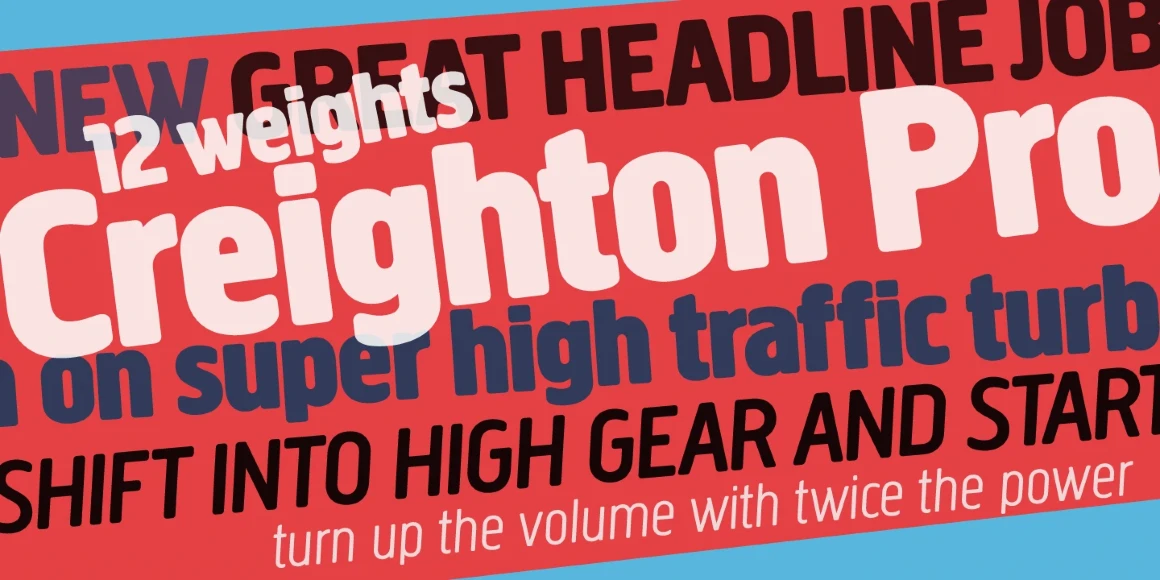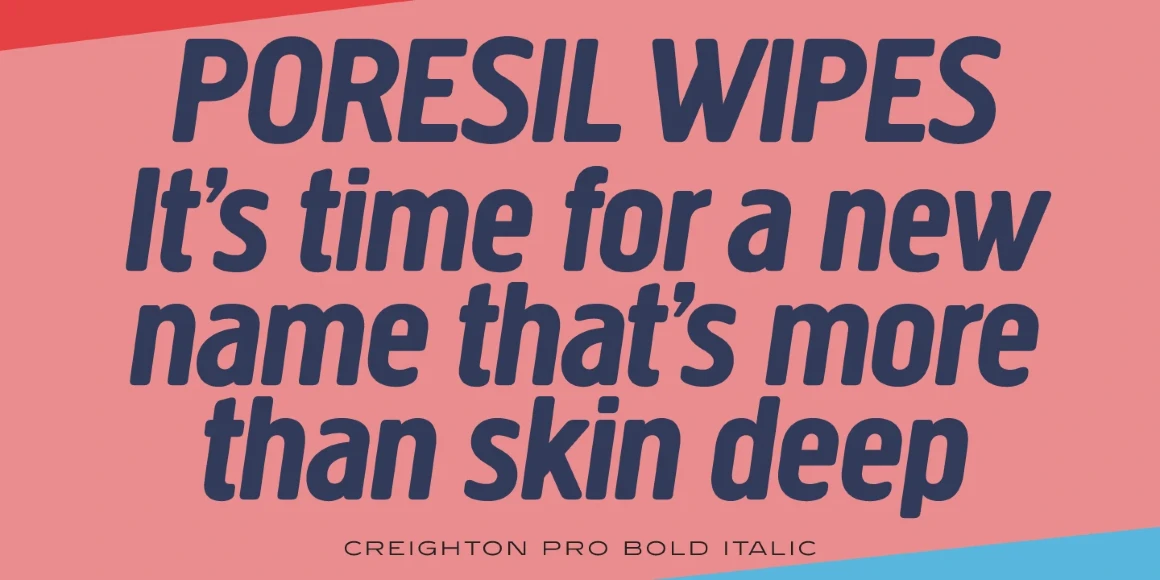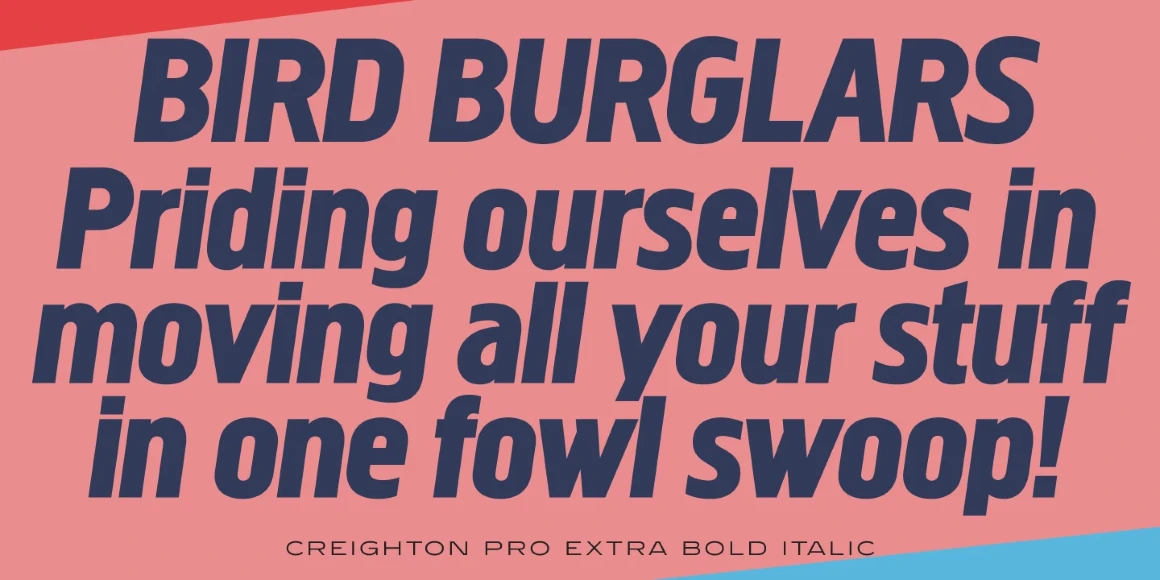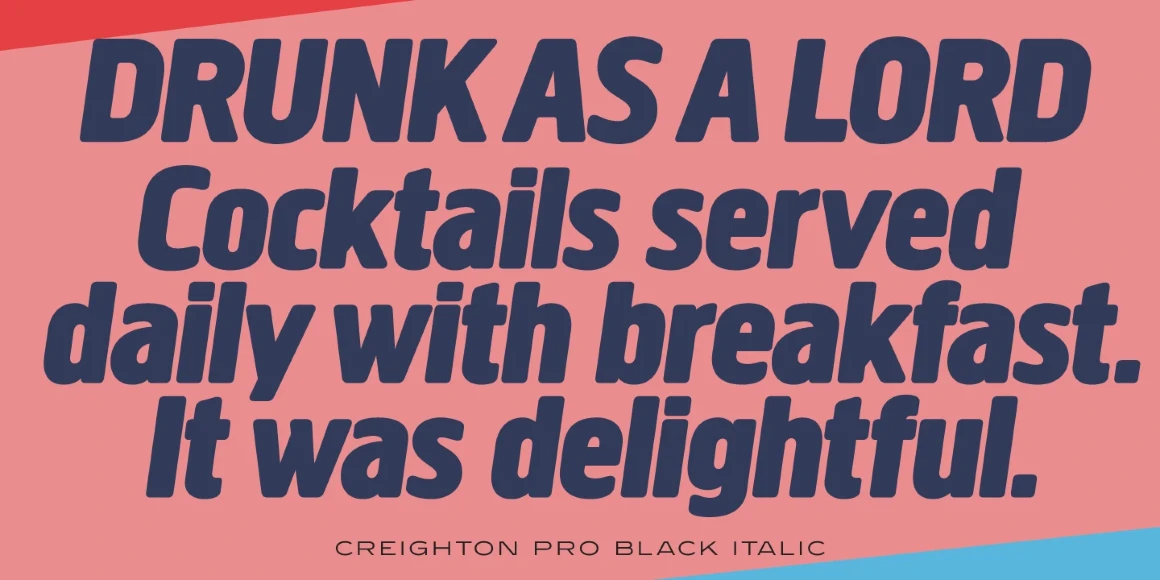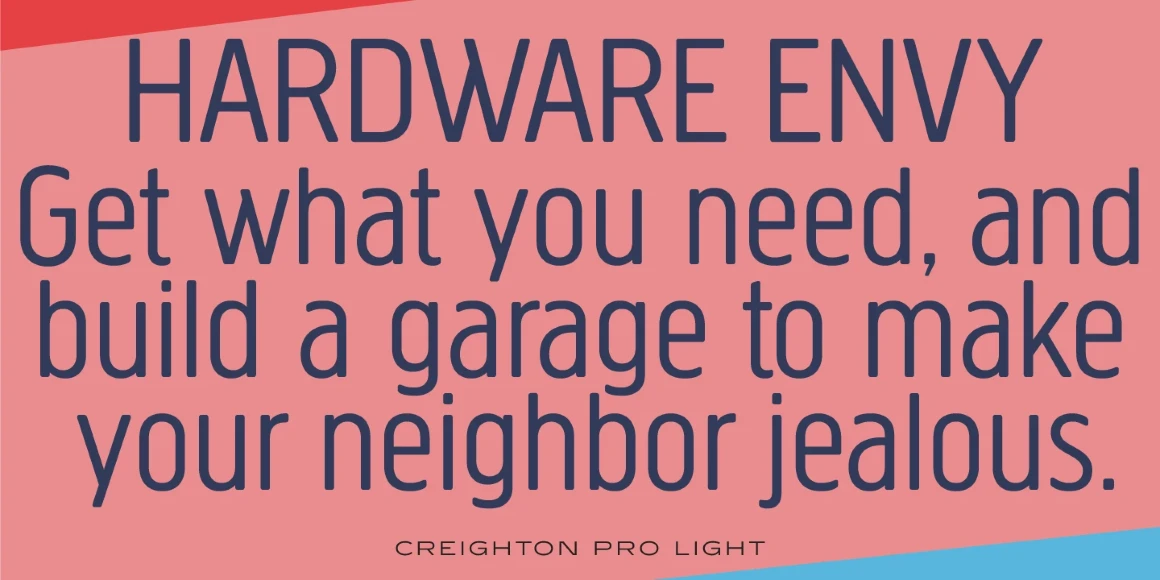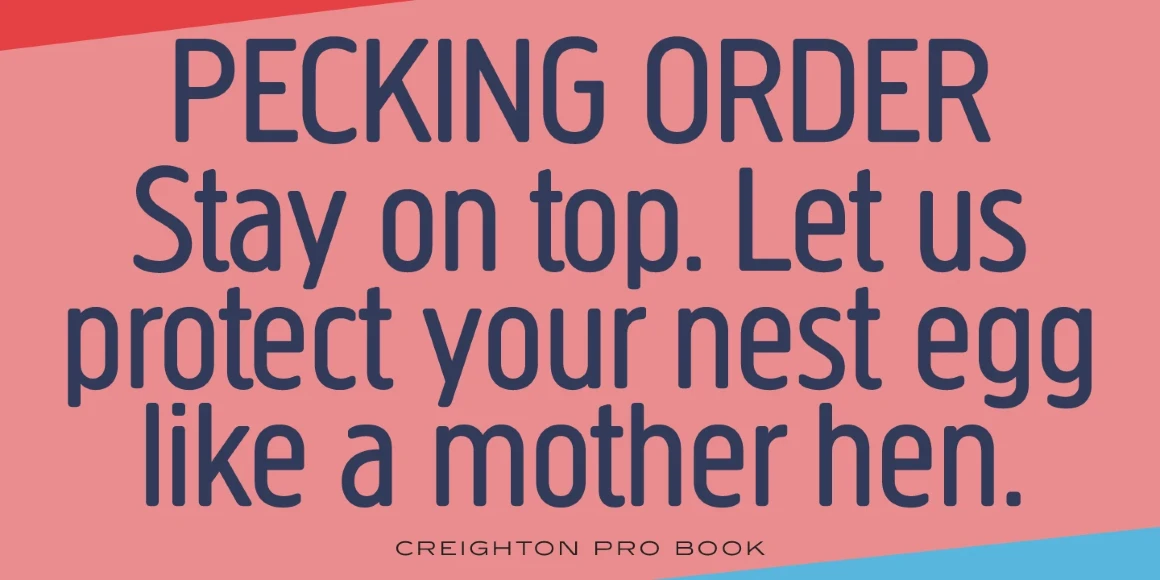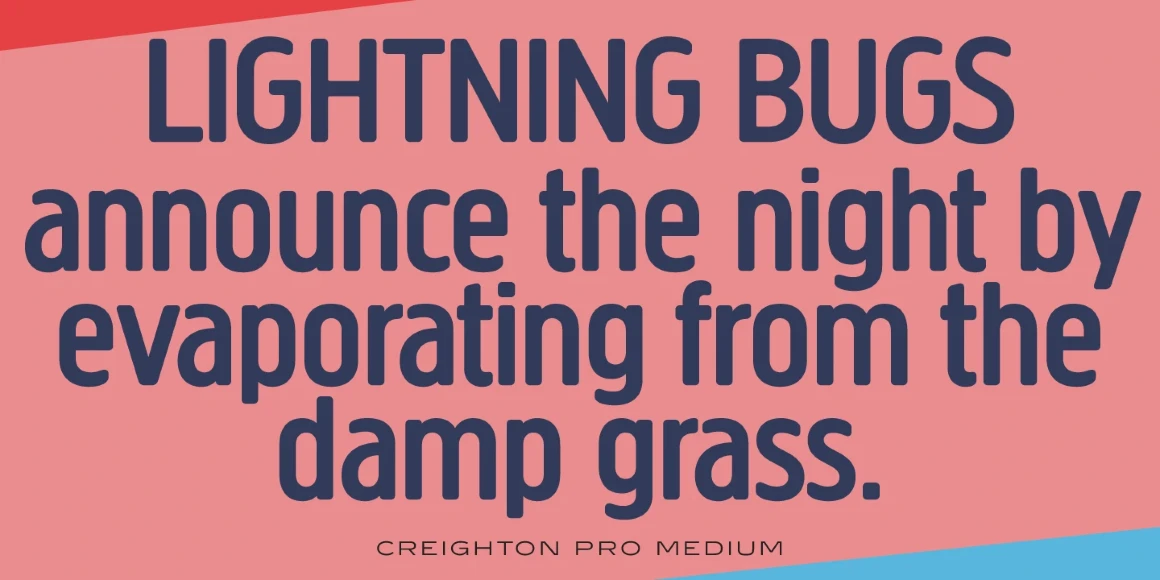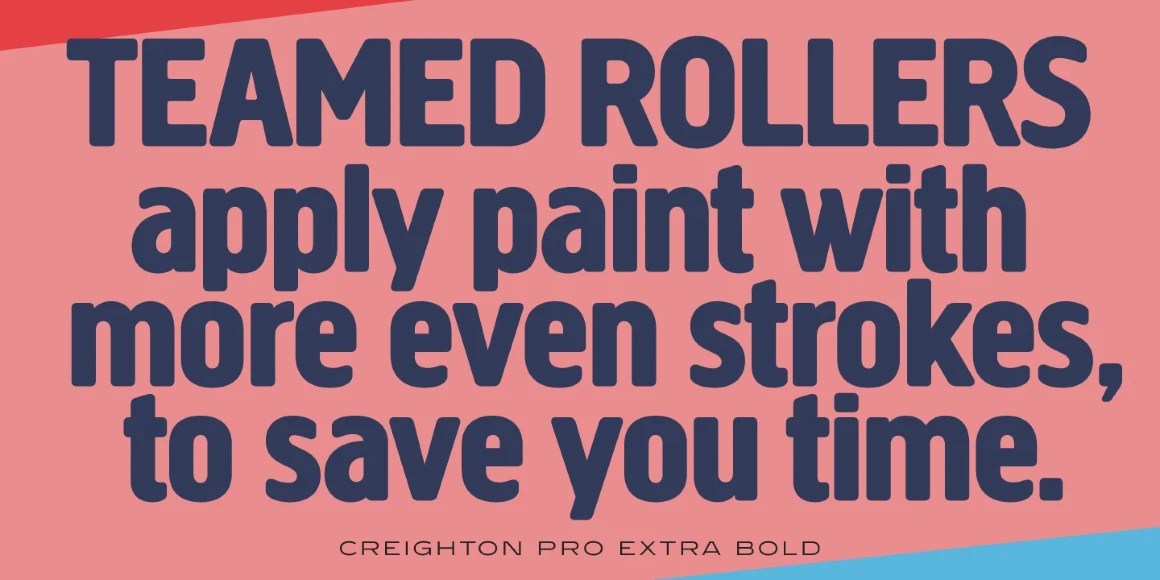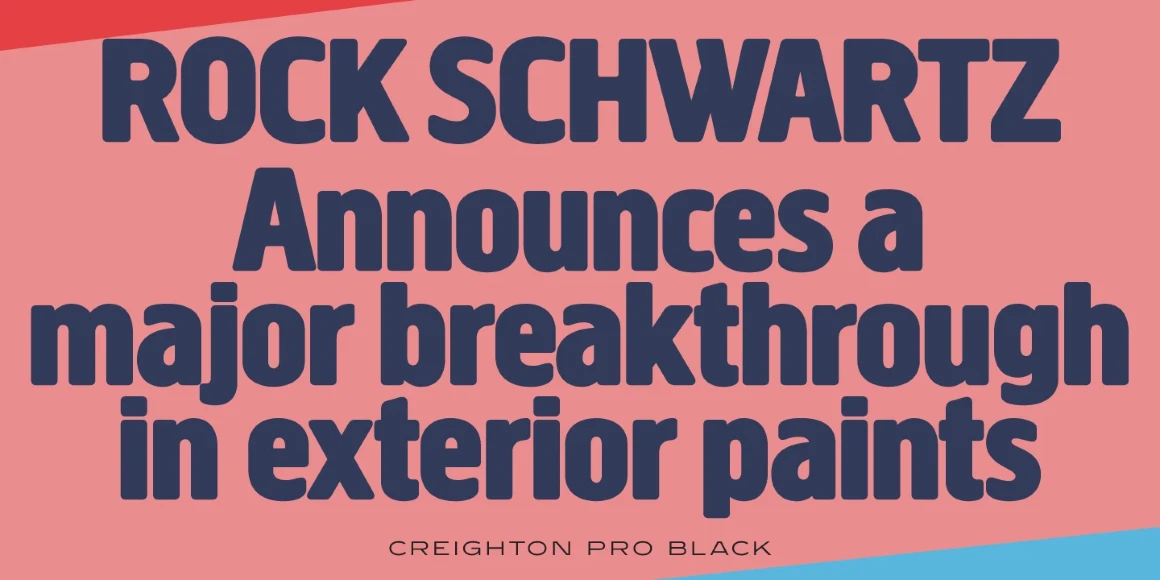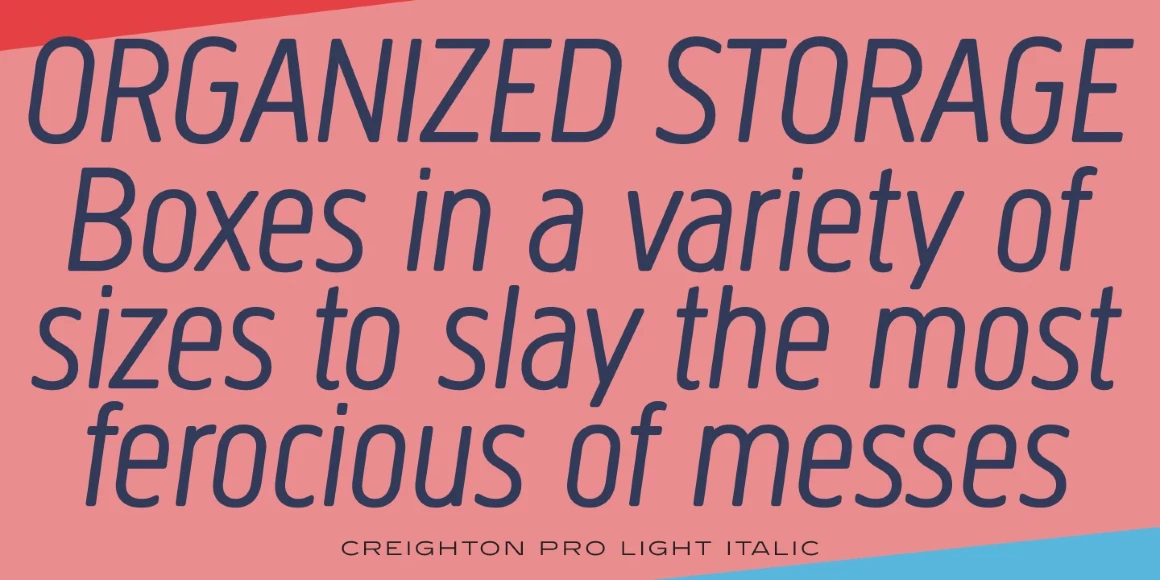
Creighton
Creighton is a sans serif font family with soft, rounded edges. It was created and produced by Steve Jackaman (ITF) and Ashley Muir in 2011. The original objective was to add a lowercase set to Les Usherwood’s “Elston” typeface, which is based on an old German typeface from Woellmer called Hermes Grotesque, but the project took on a life of its own and “Creighton” was born. A traditional sans serif sister family, Megaphone, was developed alongside it. Creighton sports an approachable feel, and struts its stuff at all sizes. This refined version adds eight weights to the original four, and supports Latin 1 and 2 languages.